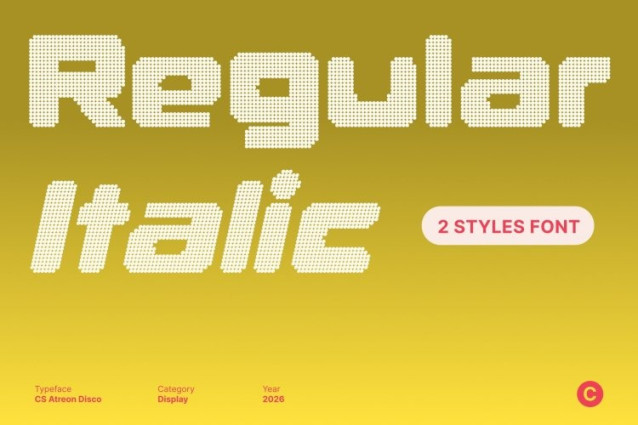
CS Atreon Disco Font
CS Atreon Disco Font This is a bold display sans serif font created to make a strong visual statement. Built for attention and clarity, it combines solid geometric forms with futuristic design principles—now energized with a vibrant disco spirit. The result is a powerful typographic presence that stands out in any composition.
Geometric Structure with Futuristic Disco Style
Each letterform is shaped with precision, featuring clean angles and structured geometry that reflect modern innovation. The futuristic influence gives the font a forward-looking aesthetic, while the disco-inspired energy adds rhythm, movement, and visual excitement perfect for tech-driven designs with a bold, expressive twist.
Expressive, Dynamic, and Eye-Catching
This font balances strength and style through bold construction and refined clarity. Its confident forms and sharp lines make it ideal for commanding headlines, impactful posters, and statement visuals. The added disco flair transforms static layouts into energetic, attention-grabbing designs.
Perfect for Modern Branding and Digital Displays
From futuristic branding and digital campaigns to editorial layouts and creative visuals, this font delivers a cutting-edge look with festive energy. Its geometric precision and disco-driven dynamism make it an excellent choice for projects that aim to communicate confidence, modernity, and creative power while shining with vibrant personality.